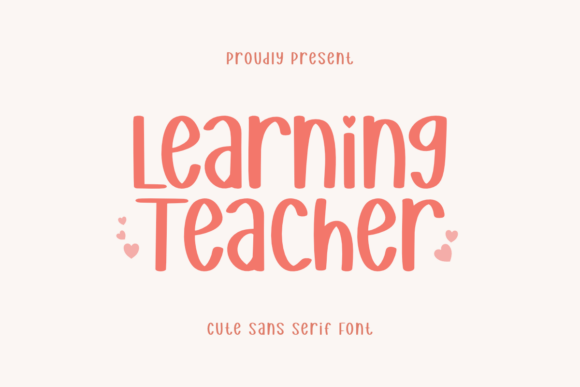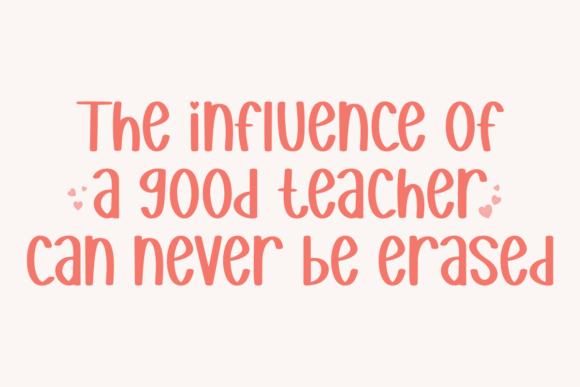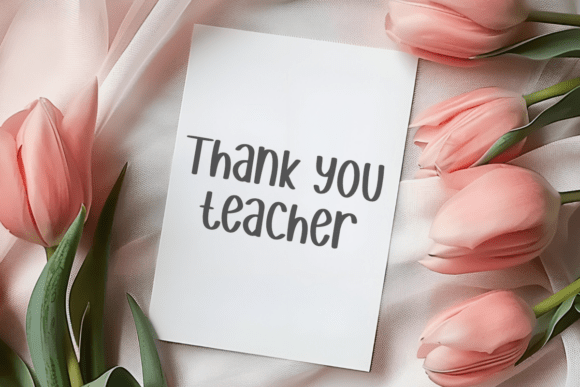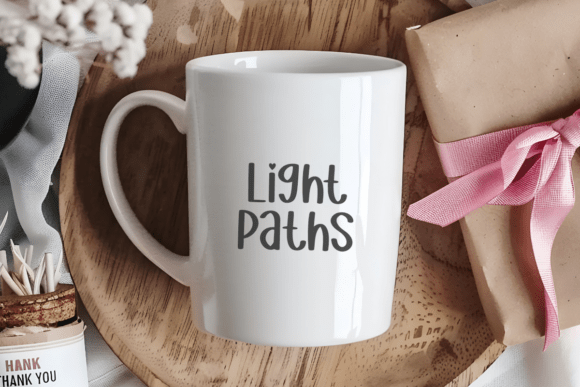
Learning Teacher Font: A Cute Sans Serif for Cricut & Printable Designs
About the Learning Teacher Font
The wait is over! The incredible Learning Teacher Font is now available for your design toolkit. Introducing Learning Teacher, a delightful sans serif font that brings a cute and friendly vibe to your designs! Perfect for crafters and graphic designers, this playful typeface adds a whimsical touch to any project. Ideal for creating eye-catching designs with a cheerful feel. Elevate your creations with Learning Teacher today!
Learning Teacher’s playful energy makes it ideal for children’s books, educational materials, branding for playful businesses (e.g., toy stores, bakeries), and social media graphics. It excels in headlines, short text blocks, and logos where its friendly personality shines. However, its whimsical nature makes it less suitable for body text, long paragraphs, or applications requiring high readability, such as websites or UI.
Pairing it with a clean sans-serif like Open Sans for body text creates a balanced, accessible design. For a more sophisticated feel, consider pairing it with a classic serif like Garamond for contrast. A playful script font, such as Pacifico, can add another layer of whimsy for projects requiring a more expressive touch.
The font’s overall personality is cheerful and approachable, conveying a sense of fun and approachability. Avoid using it for projects requiring a formal or serious tone.
Learning Teacher Font Usage Examples
Learning Teacher Font Example